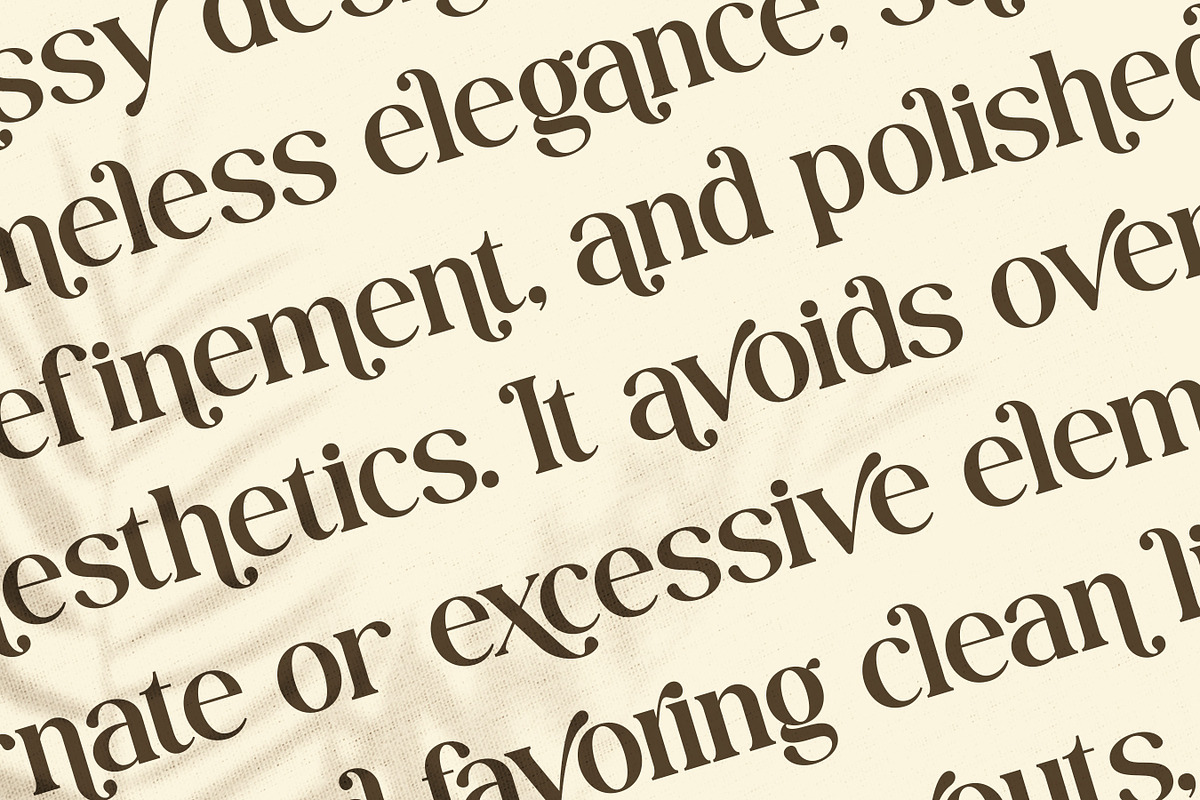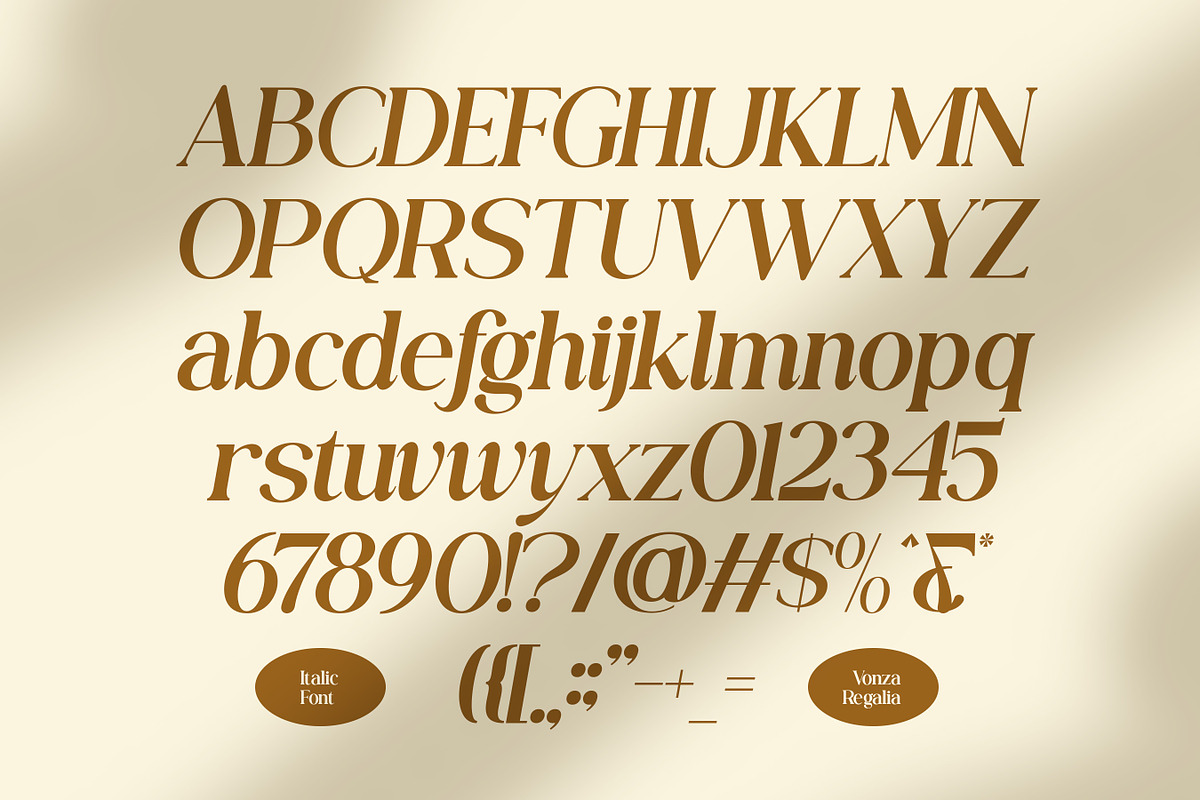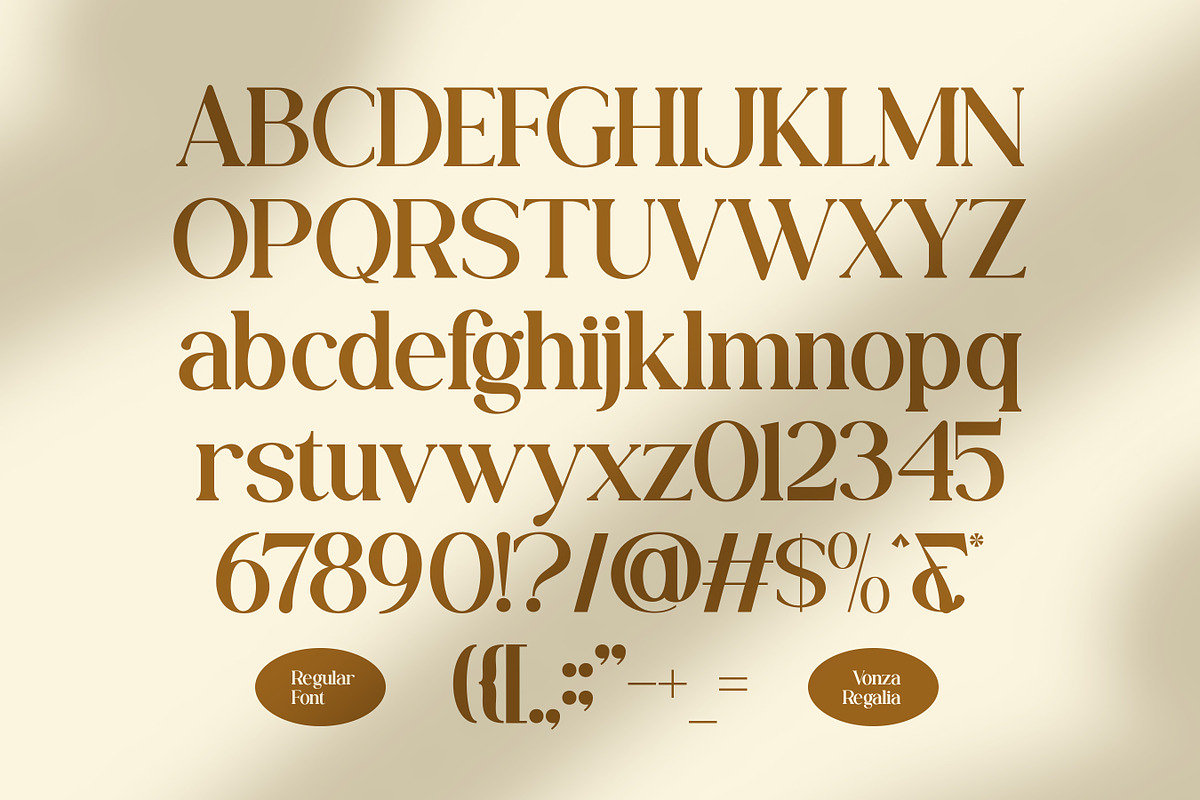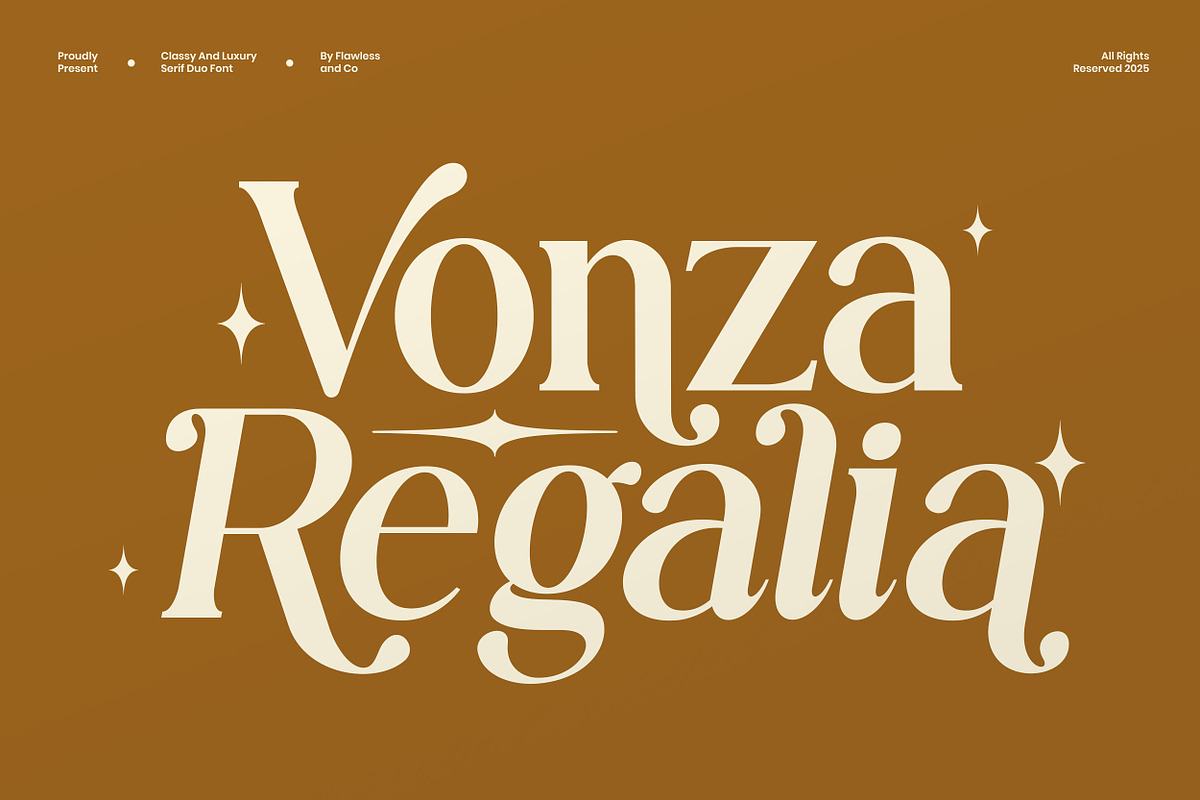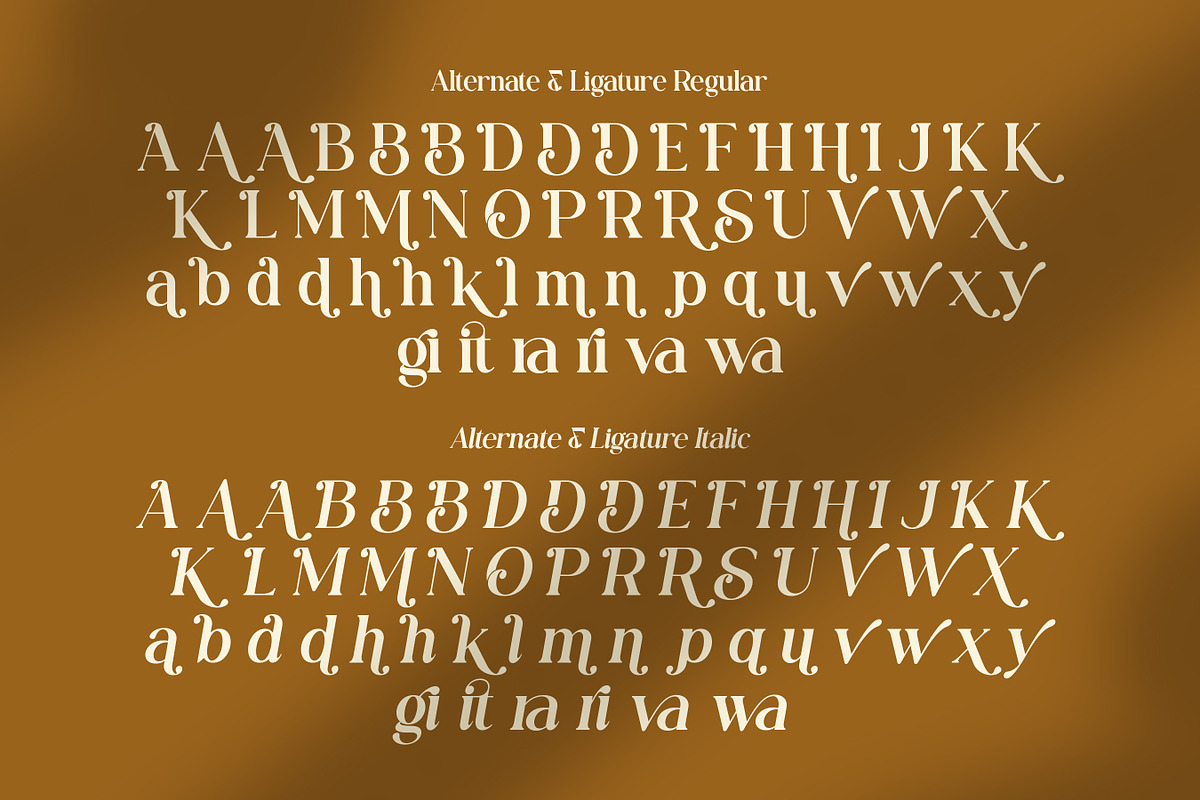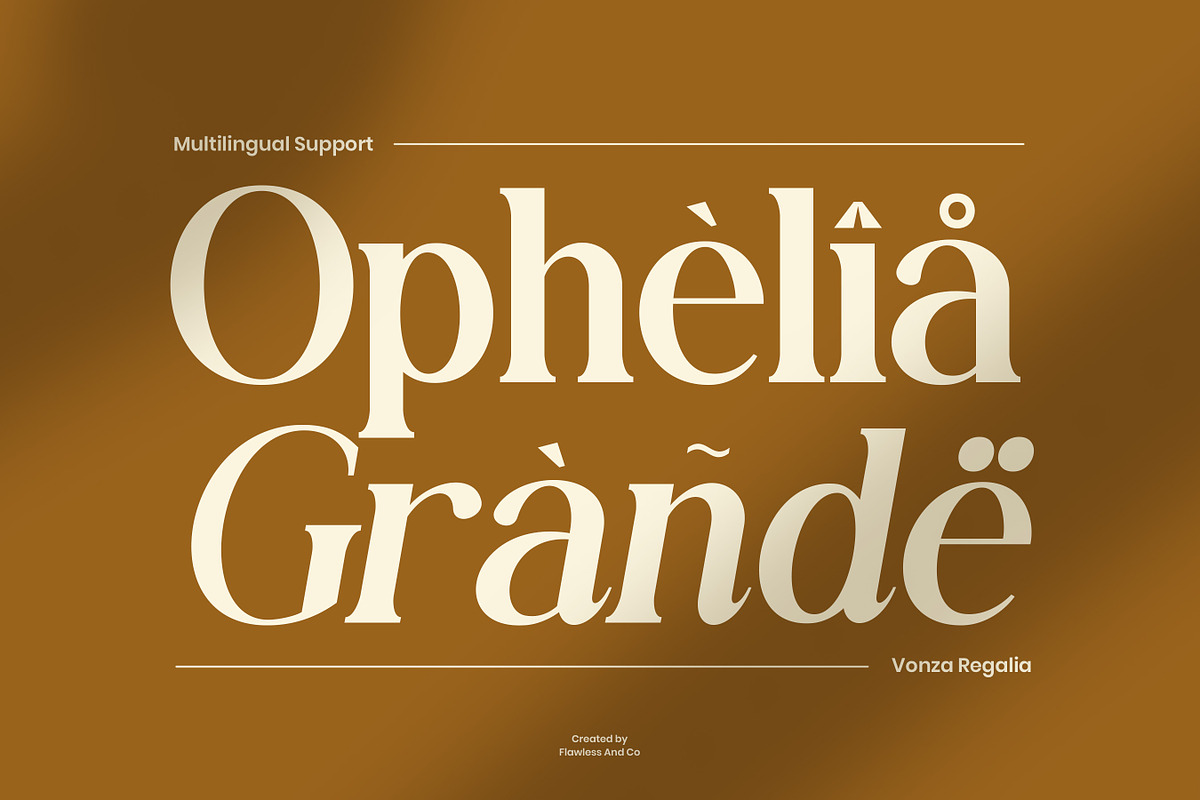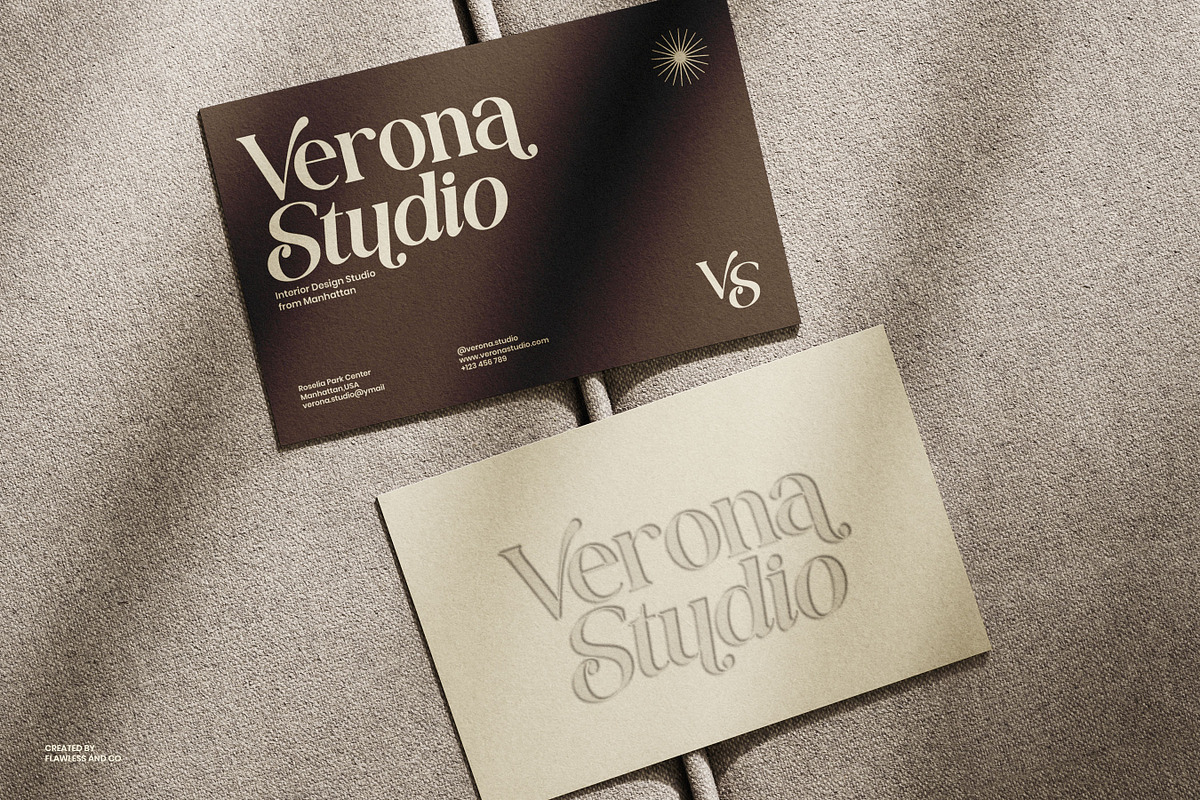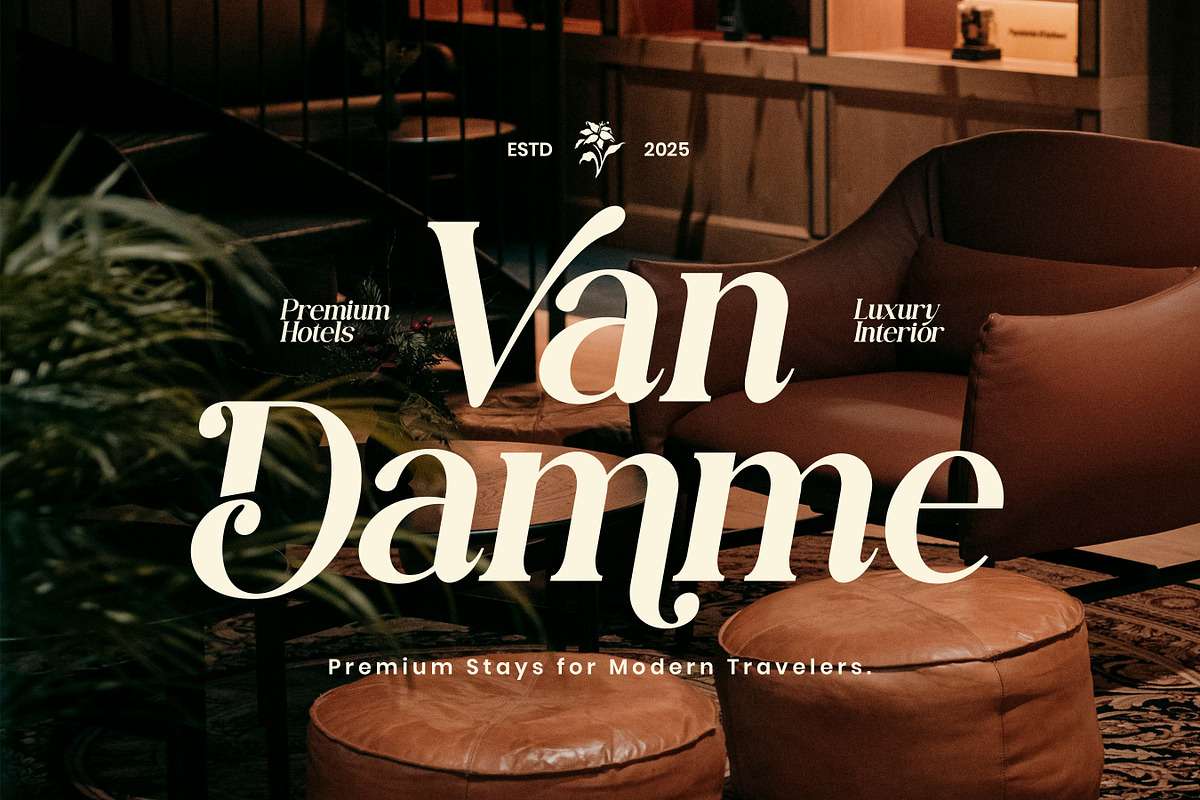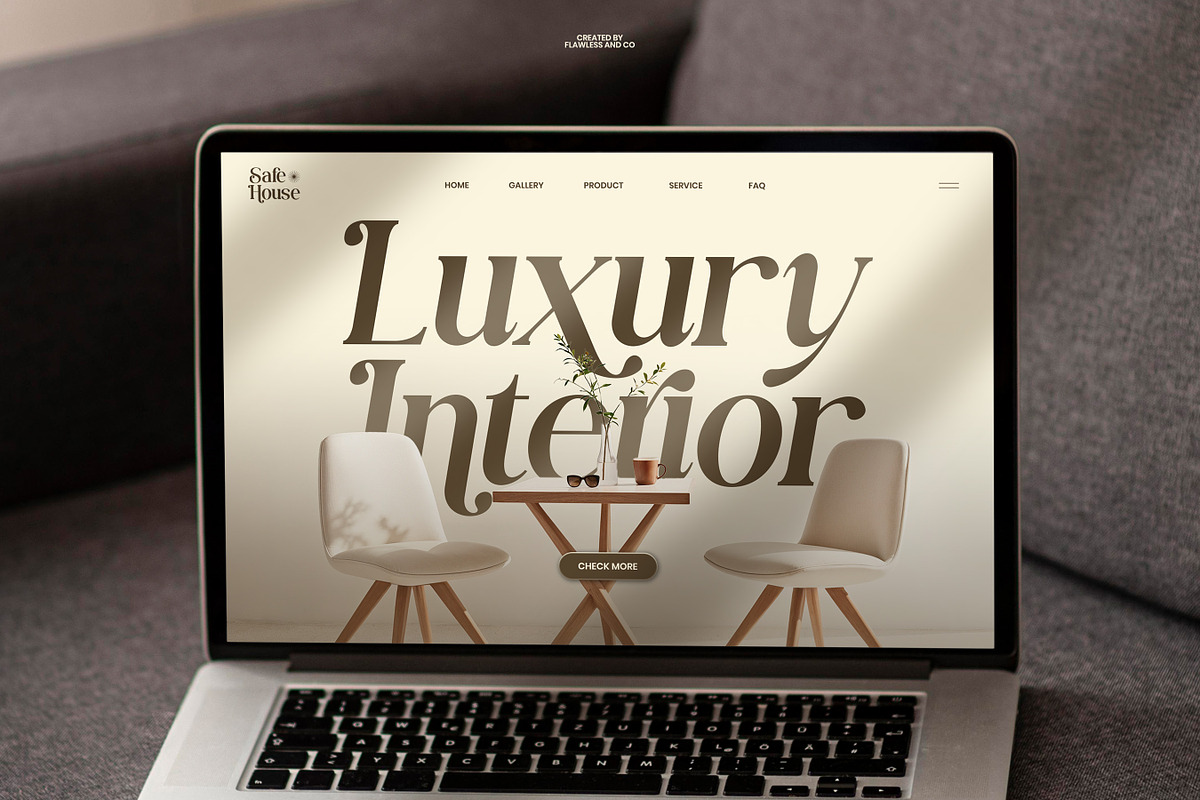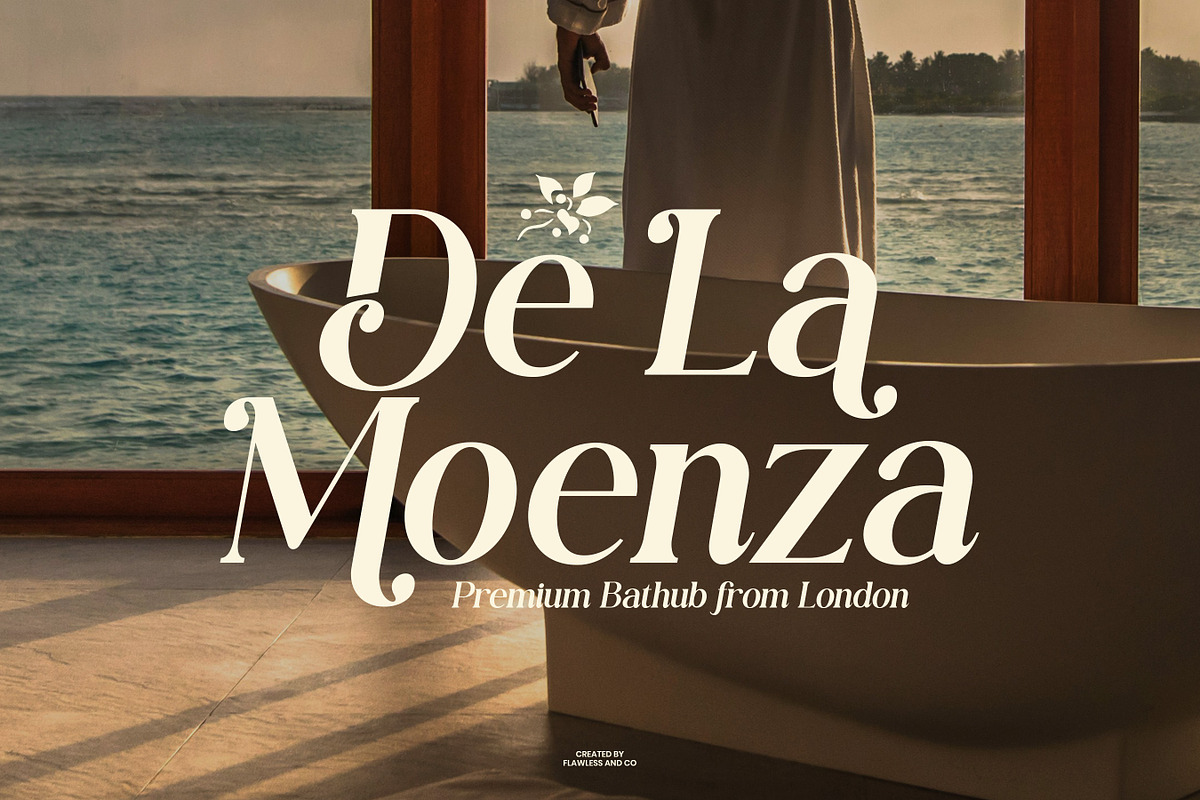
Vonza Regalia – Luxury Serif Duo Font
Vonza Regalia is a classy and luxury serif duo font designed to elevate high-end branding with timeless elegance and modern sophistication. Featuring a perfect combination of refined serif styles, this font delivers a harmonious contrast that brings character, grace, and premium appeal to every design.
Who Should Use Vonza Regalia?
- Brand designers seeking a luxury and elegant serif font
- Logo designers working on premium or boutique brands
- Creative professionals in fashion, beauty, and lifestyle industries
- Designers creating editorial and high-end visual content
A Must-Have Font for Brand and Logo Creators and Designers
Vonza Regalia offers versatility through its duo serif combination, allowing designers to create contrast, hierarchy, and visual interest effortlessly. Whether used for logos, headlines, or refined typography layouts, this font delivers a sophisticated aesthetic that enhances brand value.
Why Choose Vonza Regalia for Brand and Logo Projects?
- Elegant serif duo that creates strong visual contrast
- Luxury and classy letterforms for premium branding
- Ideal for high-end logos and brand identities
- Stylish alternates that add uniqueness and character
- Clean, professional, and timeless typography style
Suitable for:
- Luxury brand identity
- Logo and monogram design
- Fashion and beauty branding
- Editorial and magazine layouts
- Wedding invitations and stationery
- Packaging and product design
- Premium social media graphics
- Website headers and hero titles